You’ve seen display fonts everywhere. Billboard headlines, website hero sections, magazine covers, brand logos. They’re the typefaces that grab you before you’ve read a single word.
But what is a display font, exactly? And what separates it from the fonts used in body text and paragraphs?
This guide covers everything you need to know: how display fonts are built, the different categories they fall into, where they’re used in print and web design, how to pick the right one for your project, and the CSS techniques that get them onto a live site without wrecking performance. Plus the mistakes that trip up even experienced designers.
What Is a Display Font
A display font is a typeface designed specifically for use at large sizes. Headlines, titles, banners, posters. That’s where these fonts live.
They’re built to grab attention. Not to be read at 12px in a paragraph.
The threshold is generally 14pt and above, though that’s a rough guideline more than a rule. What actually defines a display font is its construction: tighter default letter spacing, higher stroke contrast between thick and thin strokes, and more decorative details in the letterforms.
These details look stunning when blown up on a billboard or hero section. But they fall apart at body text sizes, where the thin strokes disappear and the tight spacing turns into a mess. That’s the tradeoff, and it’s by design.
Display fonts span every style category. You’ll find serif display fonts like Playfair Display and Didot. Sans-serif display fonts like Bebas Neue and Oswald. Script typefaces like Lobster and Pacifico. Even slab serif options like Rockwell and Chunk Five.
The “display” label isn’t about aesthetics. It’s about function. A font becomes a display font when its optical characteristics are optimized for large-scale rendering rather than continuous reading.
Monotype’s 2024 Font Use & Forecasting Survey found that 83% of designers say typography plays a critical role in branding and communication. Display fonts carry a disproportionate share of that weight because they’re usually the first type element anyone notices on a page.
How Display Fonts Differ from Text Fonts
The difference between a display font and a text font isn’t just about size recommendations on a spec sheet. It’s structural.
Text fonts are engineered for one job: keeping people reading comfortably for extended periods. Open letter spacing, moderate stroke contrast, generous x-height. Everything serves legibility at small sizes.
Display fonts flip those priorities.
| Feature | Display Fonts | Text Fonts |
|---|---|---|
| Stroke contrast | High (dramatic thicks and thins) | Moderate (even weight distribution) |
| Default spacing | Tight | Open |
| Detail level | Ornate, intricate | Simple, clean |
| Intended size | 14pt+ | 8–14pt |
| Primary use | Headlines, titles, logos | Body copy, captions |
A Dribbble analysis of the top 1,000 websites found that headers are much less likely to be sans-serif than body text. Designers consistently choose more expressive, display-oriented typefaces for headings while defaulting to clean sans-serifs for paragraphs. That’s the display vs. text split in action.
Set Didot at 72px on a poster and it looks incredible. The hairline strokes catch light beautifully. Set it at 11px in a blog post and those same hairlines vanish on screen. Your readers squint, leave, and don’t come back.
Optical Sizing and Variable Fonts
Some type families solve this problem by offering both display and text cuts within the same family. Garamond Premier Pro, for instance, ships with a Display version and a Text version. Same DNA, different optical tuning.
Variable fonts take this further with the opsz (optical size) axis. A single font file adjusts its own stroke contrast, spacing, and detail level based on the size you set.
HTTP Archive’s 2024 data shows variable fonts now appear on 33% of desktop pages and 34% of mobile pages, up from 29-30% the year before. Roboto Flex and Source Serif 4 are two well-known examples that include an optical size axis, smoothly transitioning from text to display characteristics without loading a separate file.
In CSS, you activate this with font-optical-sizing: auto. Most modern browsers handle it natively.
Common Categories of Display Fonts
Display fonts aren’t one thing. They break into several distinct categories, and picking the right one depends entirely on the project’s tone and context.
Serif Display Fonts
High contrast, sharp details, editorial feel.
Playfair Display and Didot are the classic examples here. Both feature dramatic thick-thin stroke contrast that looks gorgeous at large sizes. Bodoni falls in this camp too.
These work well for fashion, luxury branding, and magazine-style layouts. Vogue has used Didone-style serifs for decades. There’s a reason for that. The style communicates elegance without saying a word.
Sans-Serif Display Fonts
Bebas Neue. Oswald. Futura in heavy weights.
These are workhorses for headlines that need to be bold and direct without decorative flair. They lean on geometric structure and consistent stroke weight to create impact at scale.
A study of 1,000 websites found roughly 85% of web fonts are sans-serif overall (Dribbble). But in headers specifically, designers reach for bolder, more display-oriented sans-serifs that look nothing like the body text beneath them.
Script and Handwritten Display Fonts
Personality-heavy: Lobster, Pacifico, and Sacramento give layouts a casual, human feel. They mimic hand-lettering or calligraphic strokes.
Risk factor: They’re the easiest to overuse. One script font in a hero section? Charming. Two on the same page? A craft store flyer.
Venngage data shows Nevada leads U.S. states in script font usage at 10.34%, often driven by tourism and lifestyle content where warmth matters more than formality.
Slab Serif and Decorative Display Fonts
Rockwell, Cooper Black, Chunk Five. These have thick, blocky serifs that demand attention.
Then there are purely decorative options: blackletter styles, retro typefaces, stencil fonts. Art Deco influenced display fonts still pop up regularly in branding for hotels, cocktail bars, and luxury goods.
Hawaii stands out with 23.5% of users favoring decorative fonts on Venngage’s platform, likely tied to the state’s tourism-heavy design needs (Toner Buzz, 2024). These fonts work when the context calls for personality. They fail when readability matters more than mood.
Where Display Fonts Are Used
Display fonts show up anywhere the type needs to stop someone mid-scroll or mid-stride.
Website hero sections are probably the most common use case now. Landing pages, product launches, campaign microsites. The headline is doing 80% of the persuasion work, and a display font gives it weight.
Print design still leans heavily on display type. Billboard lettering, magazine covers, book covers, and packaging all use display fonts because the viewing distance and context demand high visual impact.
Brand logos and wordmarks frequently rely on display typefaces or custom lettering derived from display font structures. Coca-Cola’s Spencerian script. The chunky slab serifs on old newspaper mastheads. Even modern tech wordmarks often start life as modified display faces.
Adobe found that 38% of people stop engaging with a website if the content or layout is unattractive. The headline font is the first layout element users process. Getting it wrong costs you more than a style point.
Display Fonts in Web Design
Google Fonts is the primary source for free web design display fonts. The library now includes 1,826 font families as of May 2025 (Photutorial), with display-category fonts like Abril Fatface, Righteous, and Playfair Display among the most downloaded.
Adobe Fonts and Fontspring serve the premium market. MyFonts and Font Squirrel fill the gap between free and fully commercial.
Performance matters. Loading a display font only for headings means you can get away with loading a single weight, maybe two. That keeps the file size low. Pair it with a neutral body font and you’ve got a typographic hierarchy that does real work.
The most common pairing pattern? A display serif for H1 with a clean sans-serif for body text. Pairing fonts like Playfair Display with Source Sans is a combination you’ll see across thousands of sites. The contrast between the two creates clear visual hierarchy without competing for attention.
How to Choose a Display Font
Took me forever to realize that choosing a display font in a font picker is nothing like choosing one at actual size. They look completely different when rendered at 48px on a real layout versus the preview grid in Google Fonts.
Always test at the intended size. Open a mockup. Set the font at the exact pixel height you’ll use. Then decide.
Matching Font Personality to Project Tone
Font psychology isn’t abstract theory. It’s the reason a law firm doesn’t use Lobster and a children’s brand doesn’t use Didot.
Every display font carries an emotional signal. High-contrast serifs suggest sophistication. Geometric sans-serifs suggest precision. Scripts suggest warmth. Slab serifs suggest strength. The font needs to match what the brand actually communicates, not just what looks cool in isolation.
Linearity reports that consistent font use can boost brand recognition by up to 80%. And roughly 70% of Fortune 500 companies use sans-serif fonts in their logos. Those aren’t accidental choices. They’re grounded in brand typography strategy.
Practical Checks Before Committing
Glyph support: If you serve multilingual content, check the character set. Many free display fonts only cover basic Latin. Missed accents and diacritics look unprofessional.
Font licensing: Free for personal use doesn’t mean free for commercial use or web embedding. Check the license file before the client’s site goes live. Took a colleague three invoices from a foundry to learn that lesson.
Numerals and punctuation: Some display fonts put all the effort into letters and leave numbers looking generic. If your headline includes a date, price, or statistic, test those characters specifically.
Pairing compatibility: The display font needs to work alongside your body font. Look for contrast in structure (serif display with sans-serif body, or vice versa), not just in weight.
Display Fonts and Readability
This is the section where most problems come from. People pick a display font because it looks great in a hero, then start using it everywhere.
Display fonts are not body text fonts. Full stop.
At small sizes, the high stroke contrast that makes a display font beautiful becomes a readability problem. Thin strokes vanish. Tight spacing crowds letters together. Detail-heavy typographic elements that looked sharp at 60px turn into visual noise at 14px.
Adobe’s readability research found that personalized font choices can increase reading speed by 4 to 5 extra pages per hour without reducing comprehension. But that’s with fonts optimized for reading. Display fonts at body text sizes do the opposite: they slow readers down and increase eye strain.
The Headline-Only Rule
Keep display fonts in headings, pull quotes, and feature callouts. That’s it.
You can bend this rule slightly for short blocks of large text (a two-line product tagline, for example). But the moment you’re asking someone to read more than about 20 words in a display font, you’re hurting their experience.
The Monotype 2024 survey found 76% of designers prioritize readability and accessibility when selecting fonts. Display fonts serve the other 24%: the moments where visual impact matters more than sustained reading comfort.
Accessibility Concerns
Overly decorative display fonts create real barriers for users with low vision or cognitive disabilities. Screen readers handle them fine (they read the text, not the style). But for sighted users with dyslexia or visual impairments, heavy ornamentation makes letter recognition harder.
WCAG guidelines don’t ban display fonts. But they do require sufficient color contrast between text and background, and they recommend against very small type sizes. If you’re using a display font, pair it with a large size (which you should be doing anyway) and check your contrast ratios.
Research from NYU presented at VSS 2024 showed how tight text formats create a cognitive bottleneck called “crowding,” where closely packed visual information becomes difficult to process. Display fonts at small sizes amplify this effect because their naturally tighter kerning reduces the space between characters even further.
Popular Display Fonts and Where to Find Them
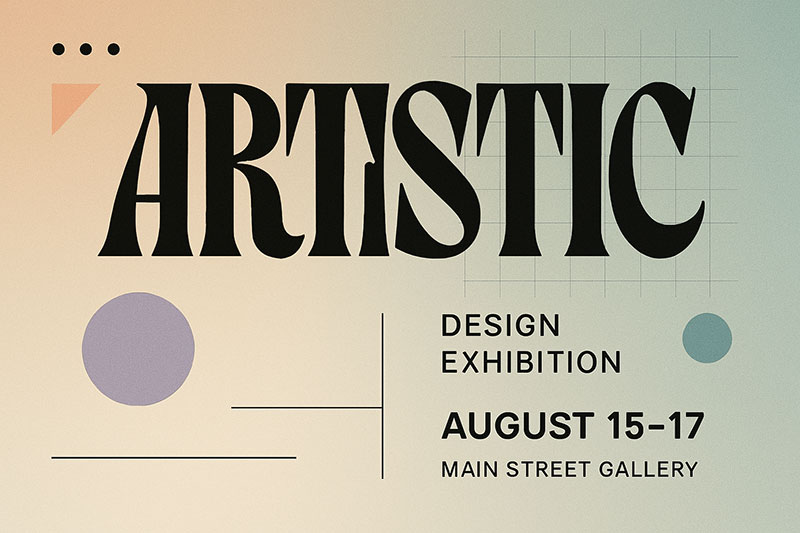
Not all display fonts are worth your time. Some have proven themselves across thousands of projects. Others just look good in a preview and fall apart in production.
Here’s what actually gets used.
Free Display Fonts Worth Using
Google Fonts is the default starting point for most projects, and for good reason. It’s free, the OpenType quality is solid, and the library keeps growing.
| Font | Style | Best For |
|---|---|---|
| Playfair Display | High-contrast serif | Fashion, editorial, luxury |
| Bebas Neue | Condensed sans-serif | Headlines, posters, UI callouts |
| Abril Fatface | Bold Didone | Magazine headers, branding |
| Oswald | Gothic sans-serif | News sites, bold headings |
| Righteous | Rounded geometric | Creative, youth-oriented projects |
Playfair Display alone has over 9 billion all-time views on Google Fonts, according to UMA Technology. That makes it one of the most popular serif display typefaces on the web.
Font Squirrel is the other go-to free source. Its library is smaller but heavily curated, with every font pre-cleared for commercial use.
Premium Display Fonts
Adobe Fonts: Included with any Creative Cloud subscription. Strong selection of professional display faces from foundries like Hoefler & Co and Dalton Maag.
MyFonts: The largest commercial font marketplace. Good filtering tools for finding display fonts by style, weight, and use case. Individual licenses start around $20-50 per weight.
Fontspring: Perpetual licenses (no subscription). Popular with agencies that need a one-time buy for client projects.
Linearity data shows about 80% of professional designers pay for font licenses. That number reflects the reality that free fonts, while good, don’t always cover every style or character set a project demands.
What to Look For in Quality
Consistent kerning across character pairs. A complete character set with proper numerals, punctuation, and diacritics. Multiple weights if the project needs range. And clear licensing terms you can actually read without a law degree.
Well, at least in theory. Your mileage may vary with some of the smaller foundries.
How to Use Display Fonts in CSS
Getting a display font into a design comp is the easy part. Getting it onto a live website without tanking performance or causing layout shifts? That’s where most of the real work happens.
Loading Methods
Self-hosted via @font-face:
“ @font-face { font-family: 'Playfair Display'; src: url('/fonts/playfair-display.woff2') format('woff2'); font-display: swap; font-weight: 700; } `
Google Fonts embed: A single tag in the that pulls the font from Google's CDN. Easiest setup, least control.
Adobe Fonts: Requires a project-specific embed code. Tied to your Creative Cloud account and domain allowlisting.
HTTP Archive’s 2024 Web Almanac reports that web font usage reached 87% of all pages crawled. That’s up from 82% in 2020. Fonts are no longer optional on the web.
The </code>font-display<code> Property
This single CSS property controls what users see while the font loads.
swap shows a fallback font immediately, then swaps in the display font once loaded. It’s the most common choice. HTTP Archive 2024 data shows 44% of sites use font-display: swap, up from about 30% in 2022.
optional gives up if the font doesn’t load fast enough. No layout shift, but users might never see your display font on a slow connection.
For display fonts specifically, swap is usually the right call. The headline is important enough visually that you want the custom font to appear, even if it takes a moment.
Performance and Font Loading
WOFF2 is the only format you need in 2025. It has 97% browser support and delivers roughly 30% better compression than WOFF (web.dev). Unless you’re supporting genuinely ancient browsers, skip every other format.
Subsetting cuts file size dramatically. If your display font only appears in English headlines, strip out Cyrillic, Greek, and CJK characters. One developer documented shrinking combined font files from 196.9 KB to 71.3 KB using Glyphhanger’s ASCII-only option, a 60% reduction (SearchX).
Preload critical display fonts with . About 11% of sites currently do this (HTTP Archive 2024). It tells the browser to prioritize the font download before it even encounters the CSS that references it.
Mistakes to Avoid with Display Fonts
Every one of these shows up regularly in live projects. Some are taste issues. Others can cost real money.
Using Too Many Display Fonts
One display font per project. Maybe two if one is for primary headings and the other is a decorative accent.
Three or more and the page starts looking like a ransom note. Each display font has strong personality. Put two strong personalities in the same room and they compete for attention instead of supporting the unity of the layout.
Setting Display Fonts at Body Text Size
This was covered in the readability section, but it bears repeating because it keeps happening. Display fonts at 12-14px look broken. Thin strokes vanish. Tight leading creates a claustrophobic reading experience.
Restrict display fonts to h1, .hero-title, and similar selectors. Never apply them globally to the body.
Ignoring Spacing at Very Large Sizes
Here’s a thing that catches people off guard: some display fonts actually need their tracking tightened manually at extremely large sizes (think 80px+). The default spacing that works at 36px can look loose and disconnected at 120px.
Test your display font at every size you plan to use. Adjust letter-spacing in CSS if necessary.
Skipping License Checks
An Extensis survey found that nearly a third of designers source fonts without checking licensing requirements. The average creative team’s collection contains over 4,500 fonts.
NBC Universal learned this the expensive way when Brand Design C filed a $3.5 million lawsuit over unauthorized use of the Chalet typeface (Pica9). Roughly 20,000 unauthorized downloads from NBC’s internal system turned a $175 font license into a multimillion-dollar legal problem.
Check the license before the project ships. Desktop, web, and app licenses are separate things. “Free for personal use” does not mean free for commercial or client work.
Choosing Trendy Over Lasting
Some display fonts ride a wave of popularity and then date a design within 12-18 months. Lobster had this arc. So did Pacifico for a stretch.
If the project has a long shelf life (a brand identity, a product launch, a set of brand guidelines), pick a display font with staying power. Playfair Display, Bebas Neue, Cooper Black. These have been around for years and still look current. That’s a better bet than whatever just hit the trending tab on Google Fonts last week.
FAQ on What Is A Display Font
What is a display font?
A display font is a typeface designed for large sizes, like headlines, titles, and banners. It features higher stroke contrast, tighter spacing, and more decorative detail than text fonts built for body copy.
What is the difference between a display font and a text font?
Text fonts prioritize readability at small sizes with open spacing and even stroke weight. Display fonts prioritize visual impact at large sizes, using dramatic thick-thin contrast and tighter kerning that would fail at body text scale.
Can you use a display font for body text?
No. Display fonts lose legibility below roughly 14pt. Thin strokes disappear on screen, letter spacing crowds together, and readers fatigue quickly. Keep them in headings and pull quotes only.
What are some examples of popular display fonts?
Playfair Display, Bebas Neue, Abril Fatface, Oswald, Cooper Black, Didot, and Lobster are widely used. Most are available free through Google Fonts or included in Adobe Fonts subscriptions.
Are display fonts free to use?
Many are. Google Fonts and Font Squirrel offer display fonts under open-source licenses for both personal and commercial use. Premium options from MyFonts or Fontspring require paid licensing per weight.
How do I add a display font to my website?
Use CSS @font-face with a WOFF2 file, embed via Google Fonts, or load through Adobe Fonts. Set font-display: swap so text remains visible while the custom font loads in the background.
What font categories count as display fonts?
Display fonts span multiple categories: serif, sans-serif, script, slab serif, and decorative. The “display” label refers to intended use at large sizes, not a specific visual style or classification.
Do display fonts affect website performance?
Yes. Every custom font adds file weight and loading time. Limit display fonts to one or two weights, use WOFF2 format for compression, subset unused characters, and preload critical font files.
How do I pair a display font with a body font?
Create contrast between the two. A serif display font pairs well with a clean sans-serif body font. Playfair Display with Source Sans is a classic combo. Avoid pairing two display fonts together.
What makes a good display font for branding?
It should match the brand’s tone, offer a complete glyph set with proper numerals and punctuation, come with clear licensing for commercial use, and still look current five years from now.
Conclusion
Understanding what is a display font comes down to recognizing its purpose: large-scale typographic impact. These typefaces exist to make headlines, logos, and feature text impossible to ignore.
The technical side matters just as much. Optical sizing, WOFF2 compression, font-display: swap`, and proper subsetting keep your site fast while delivering the visual punch a display typeface provides.
Pick fonts that match your brand’s visual identity. Test them at real sizes. Check the license before anything goes live.
Pair a strong display serif or sans-serif with a readable body font to build clear balance across your layout. One display font, used well, does more than three used carelessly.
The best display font isn’t the trendiest one. It’s the one that still works for your project a year from now, loads fast, and makes people stop scrolling long enough to actually read what you wrote.